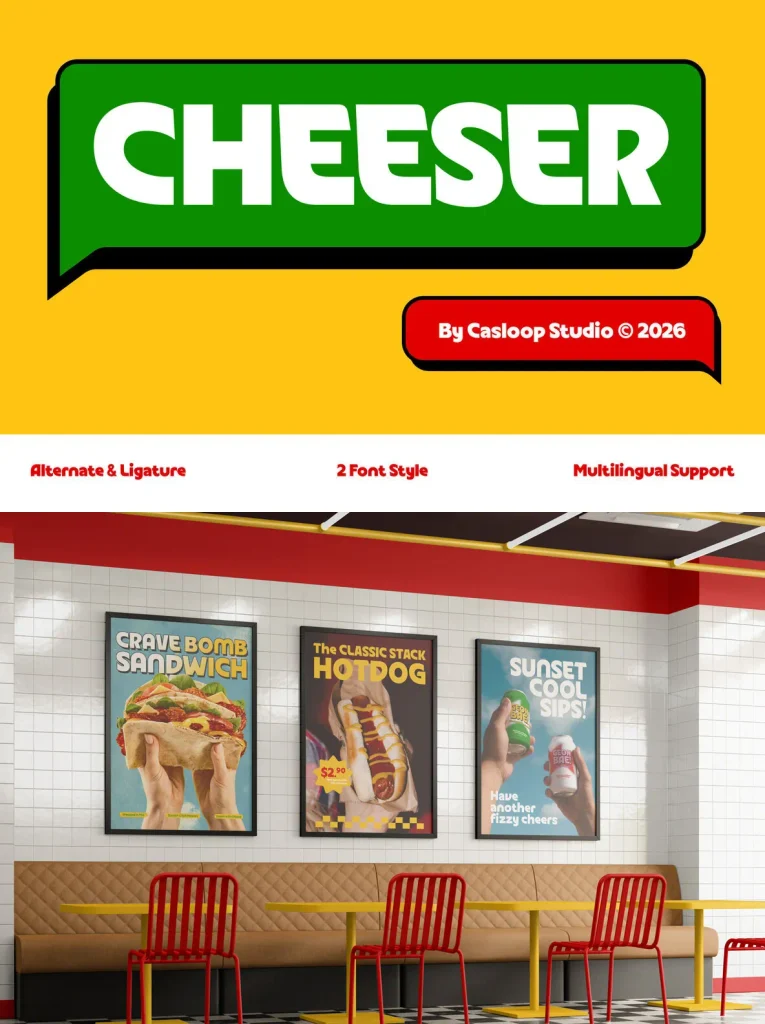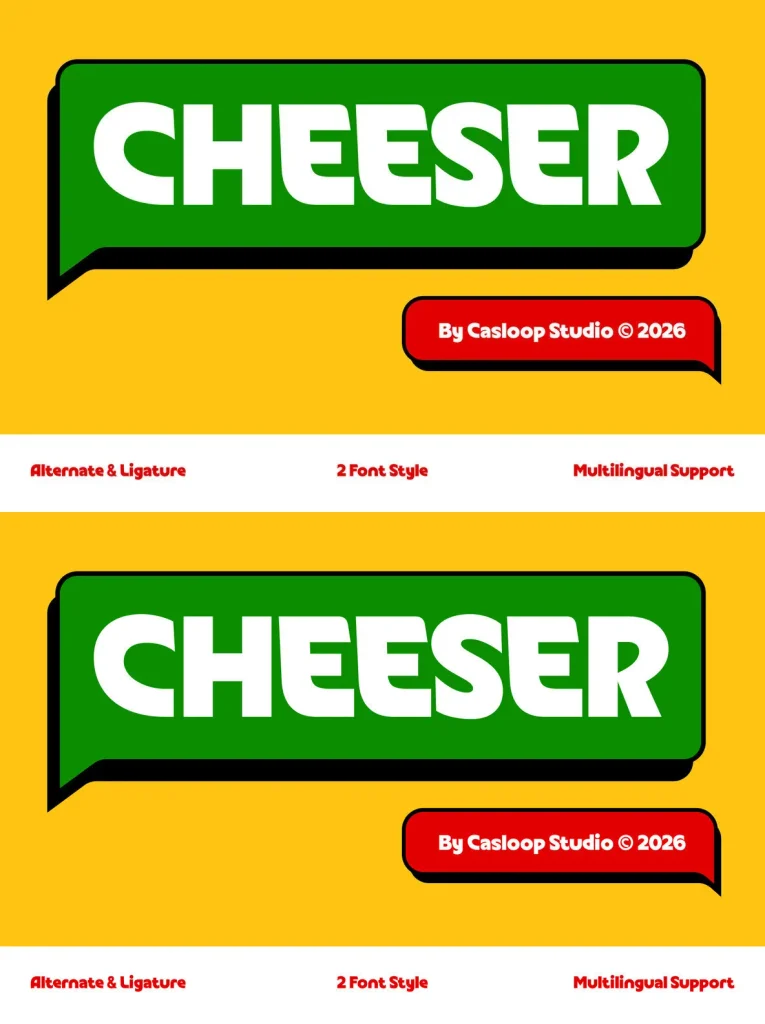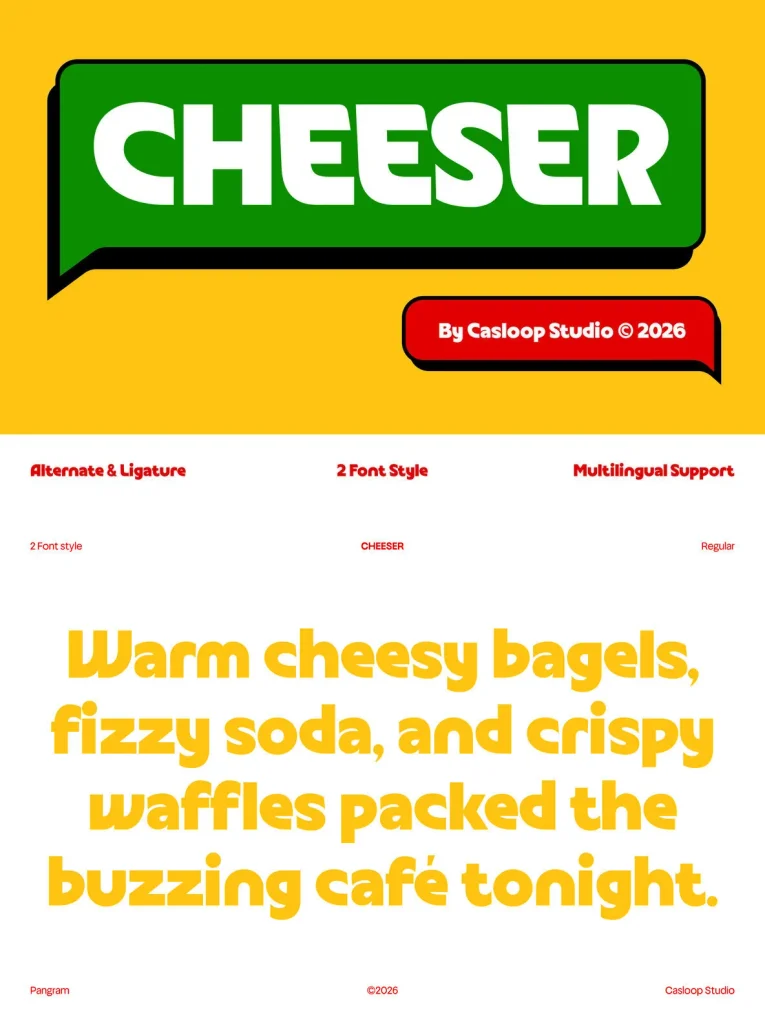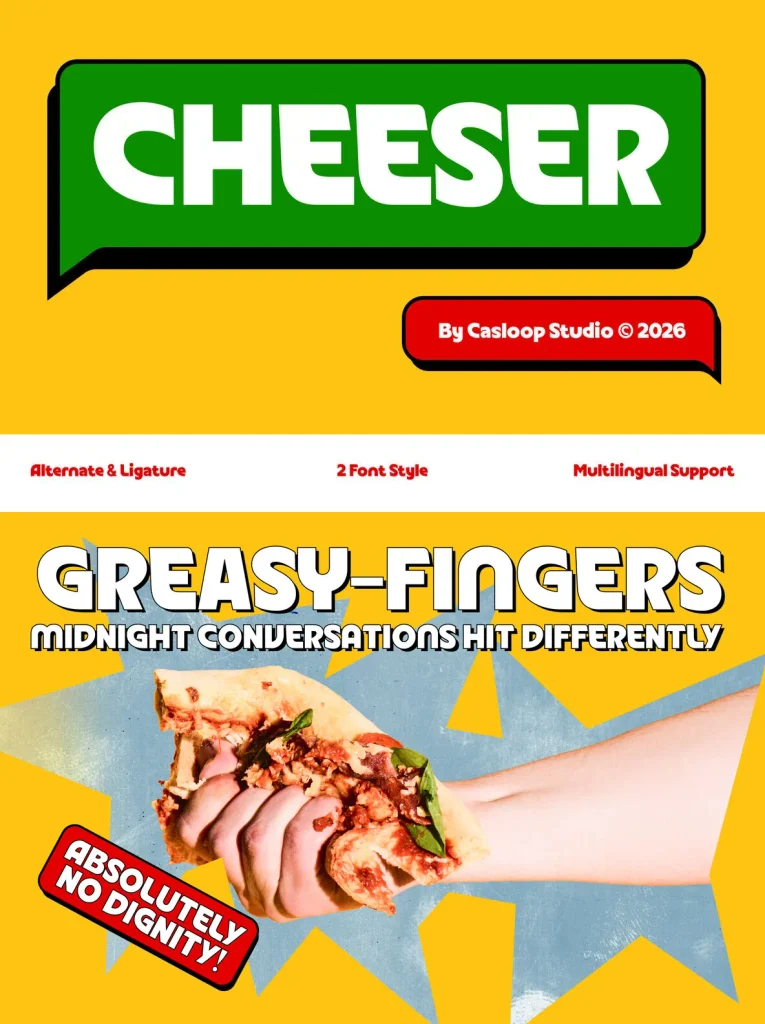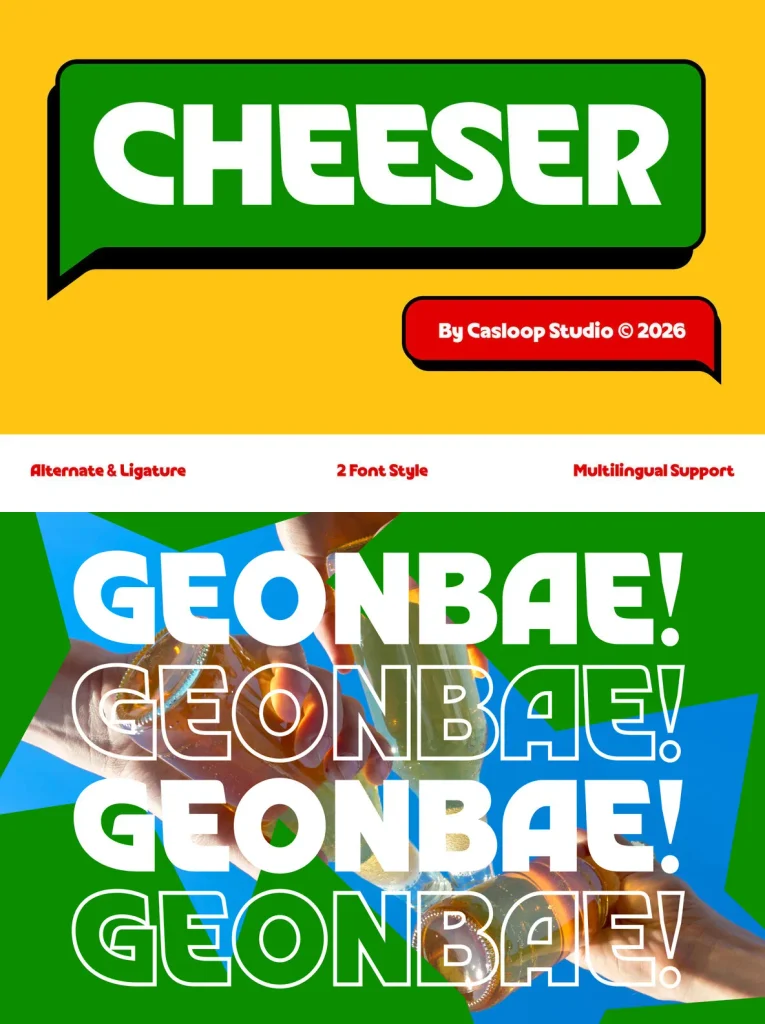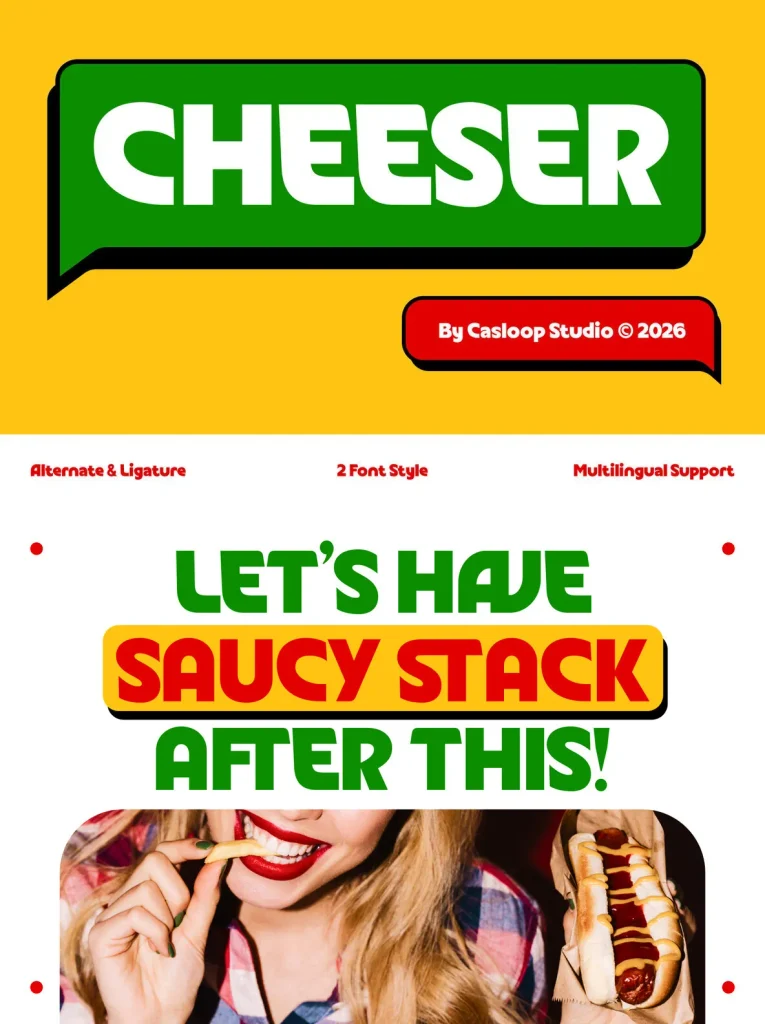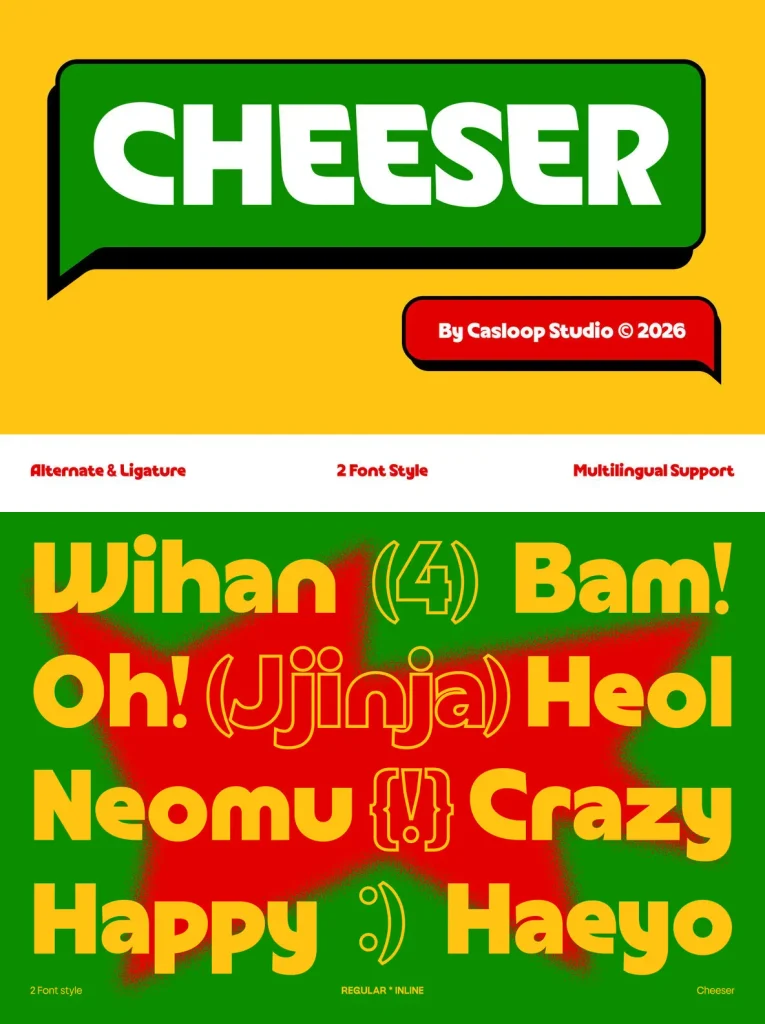
Cheeser — Chewy Retro Display Flavor
Cheeser is a stylistic vintage display font inspired by classic sign painting, retro food packaging, and nostalgic cafe culture. Its standout characters G, R, S, A, Q, and E use thick, compact constructions with soft rounded corners, giving the typeface a chewy, playful personality full of visual flavor.
Carefully shaped counters and curved terminals strengthen Cheeser’s old-school fast-food aesthetic. The result is a warm retro font that feels bold, approachable, and ready for promotional design. Use it for cafe branding, packaging, signage, menus, and headline designs that need energetic vintage charm and delicious visual character.